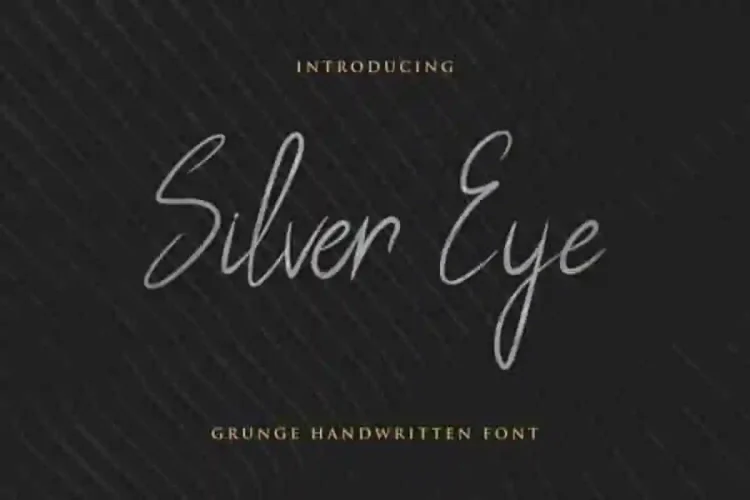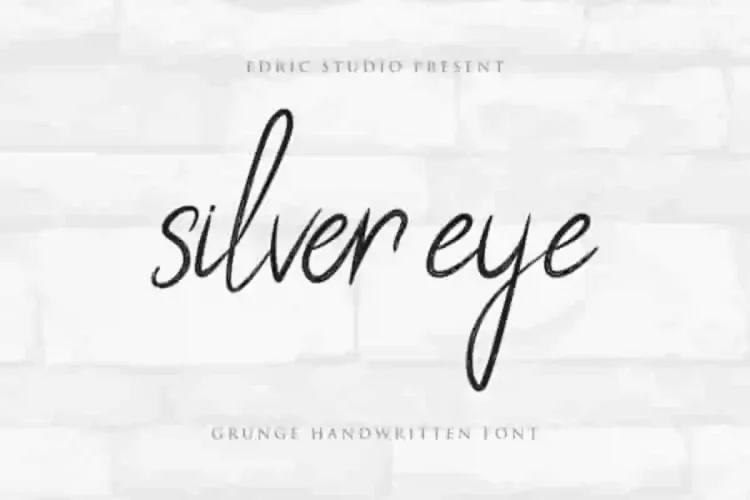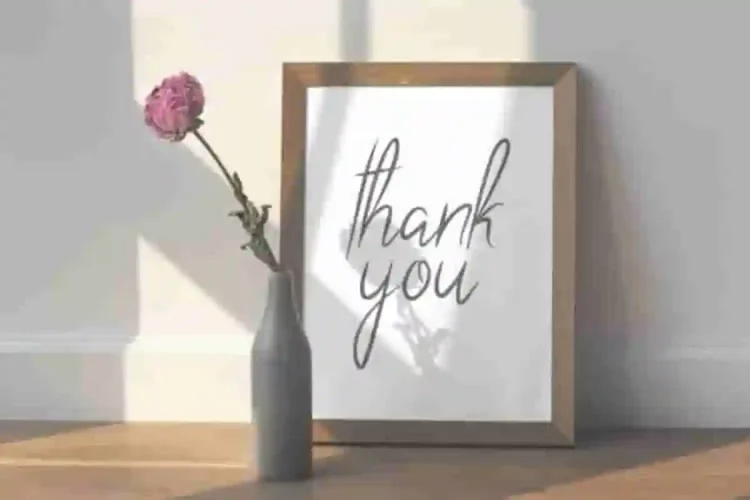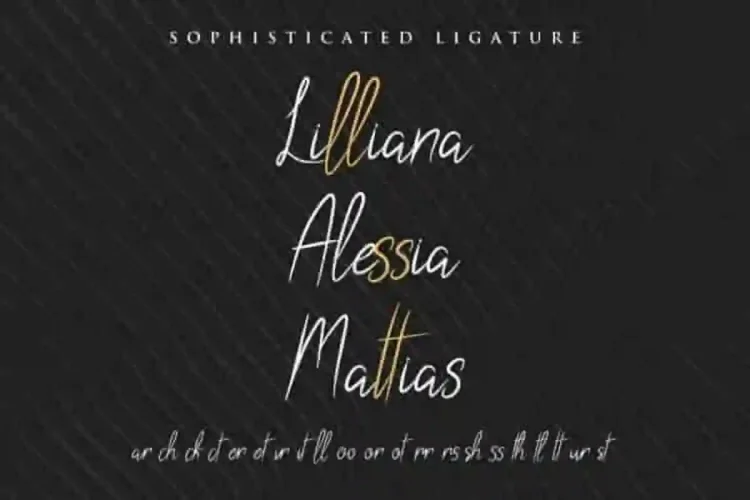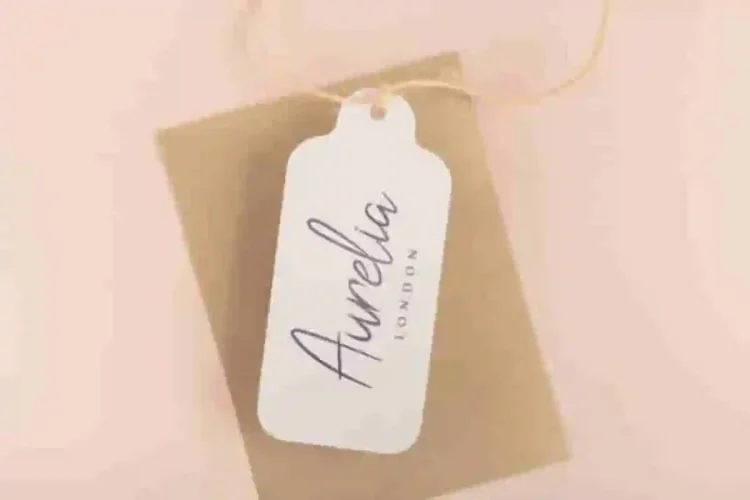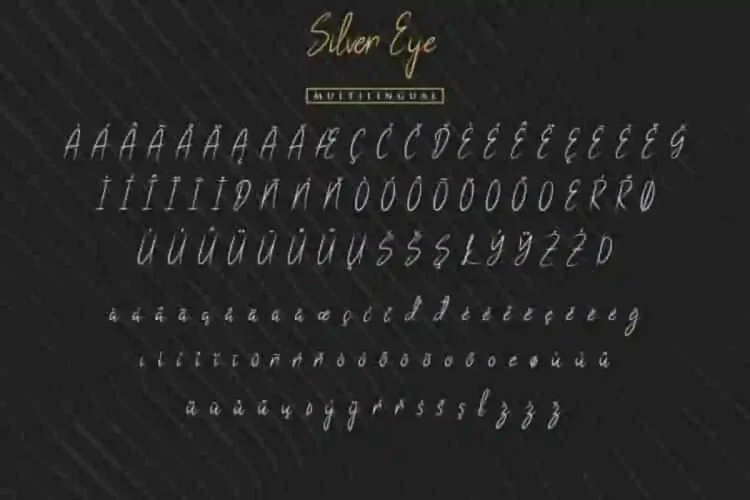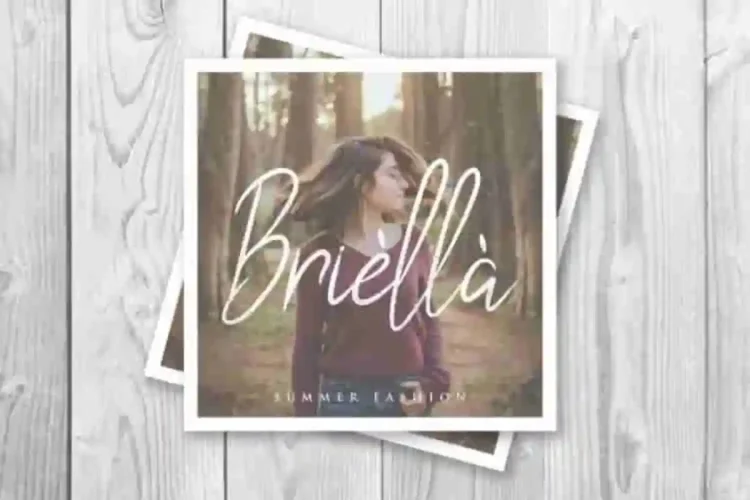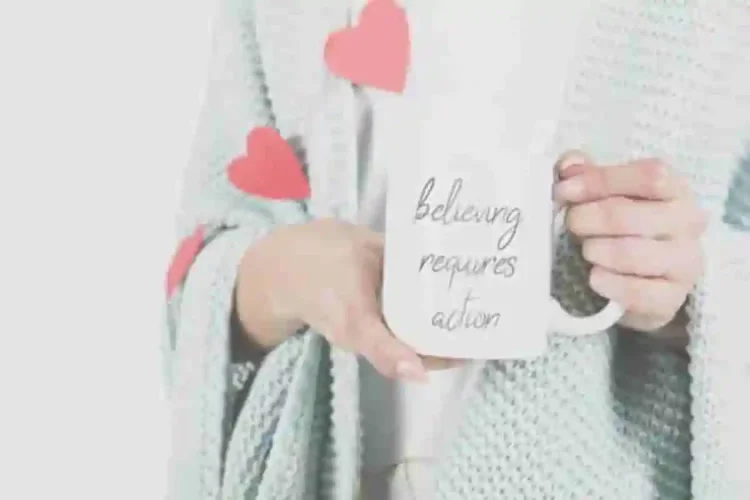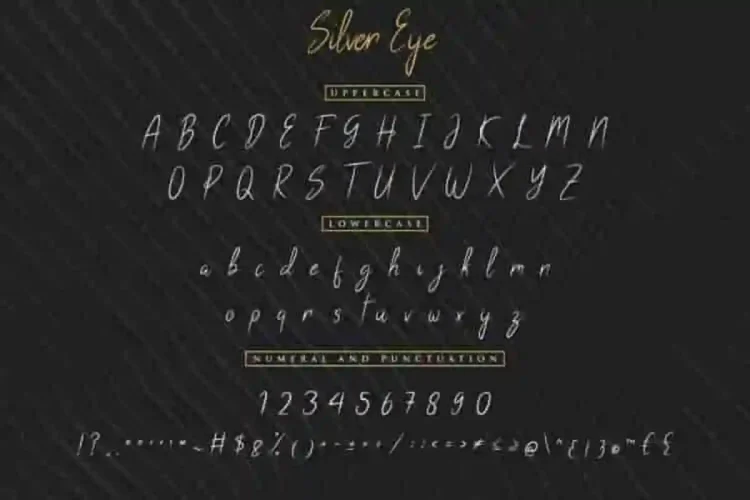
Silver Eye Calligraphy Font
Silver Eye Calligraphy Font is a Calligraphy font, freshly made from our Studio here in Indonesia. The artists/designers of this beautiful tyeface is Aghnia, Yasri and Sarah Suci.
Silver Eye Calligraphy Font is a script typeface with brush style . This font has a stunning characters set, perfectly managed with well spaced and kerning.
Silver Eye Calligraphy Font will be great for any projects including : branding, logo, stationery, business card, signage, flyer, brochure etc. Almost all industries will be match for this typeface: wedding, events, real estate, architect, law firm, florist, gardening, makeup artist, travel, hotel, musician etc.